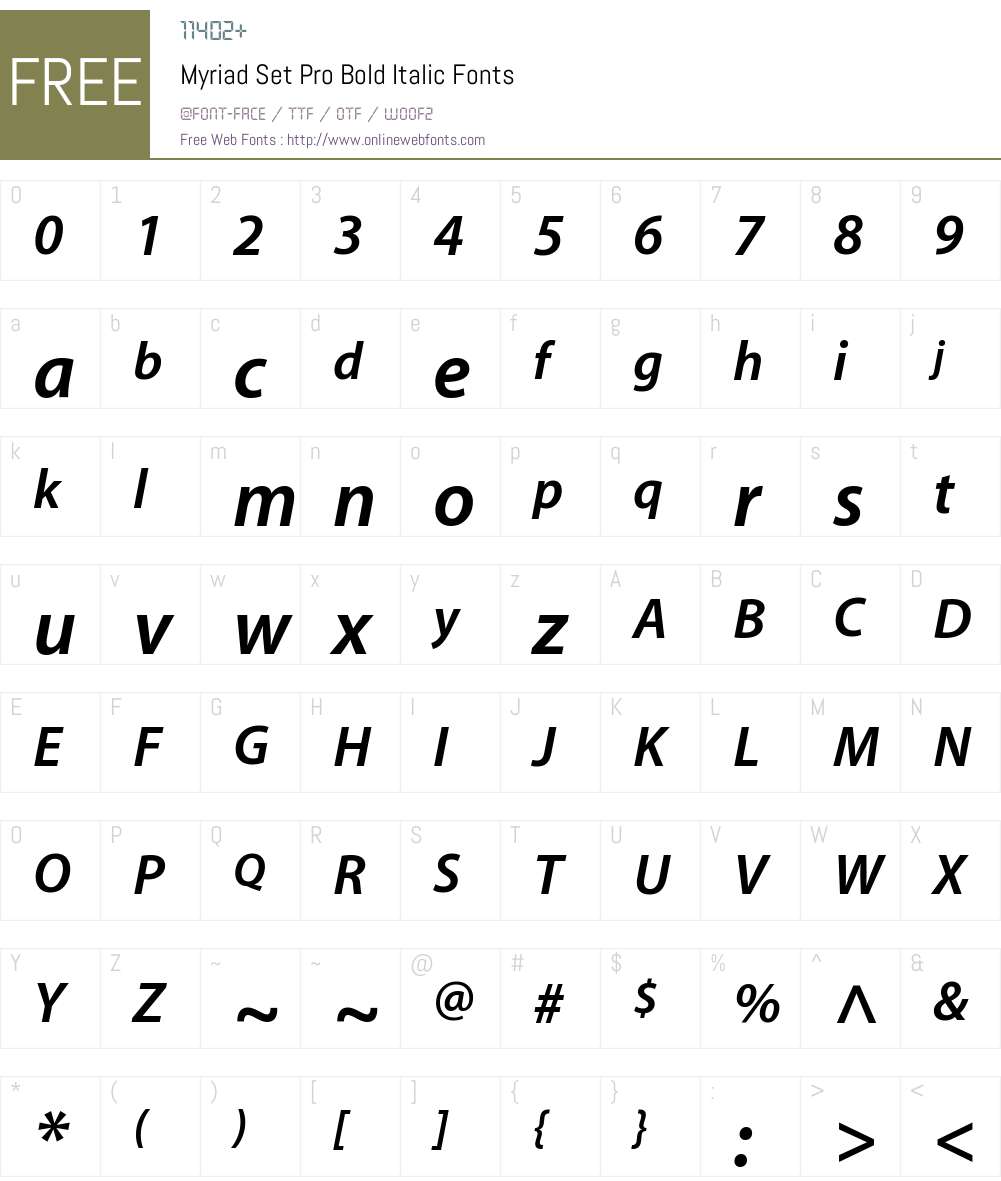
Web download myriad pro bold italic font. Myriad pro bold italic by adobe systems incorporated. Web myriad pro’s clean open shapes, precise letter fit, and extensive kerning pairs make this unified family of roman and italic an.